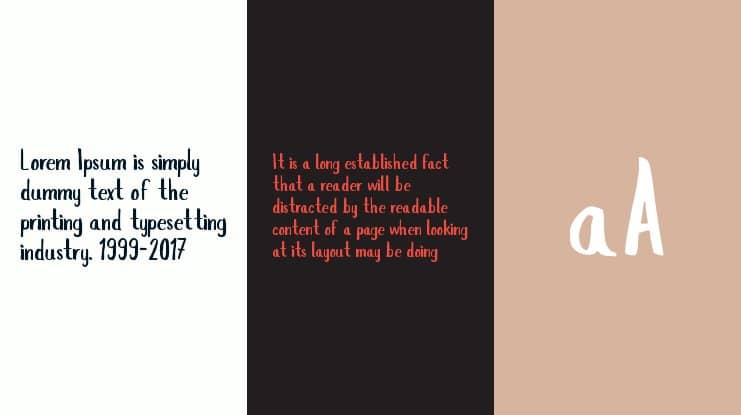
Slopes Brush Font Free
Slopes is a handcrafted brush typeface that works well with vintage and handmade projects. Upper and lower case letters, numbers, and glyphs total 400 characters. Russian, Cyrillic, Central European, and Turkish are examples of multilingual support. This is a really elegant typeface that will allow you to create world-class designs quickly. Boris Garic created and published the Slopes Brush. On February 4, 2018, the Font was made public. The texture of the Font can provide a sophisticated touch to any project.
The black and white font colour scheme gives this Font a strong appearance. The typeface belongs to the Script and Brush font families. This typeface is a godsend for writers looking for a new, elegant font to use in their books. As a brush font, it has a fantastic texture that might be used in a variety of unique and creative projects. The greatest place to use this beautiful Script brush font is in the headings and subheadings. It’s a simple typeface to use, and it can be turned into a web font at any moment. The typeface comes in two different formats: TTF and OTF.
The Font is suitable for logos, printed quotes, invitations, cards, product packaging, headlines, and virtually any other design project. Slopes Brush Font Free is also suitable for use in branding initiatives, homeware designs, product packaging, and as a sophisticated text overlay on any background image. Almost any colour goes well with the typography. On the cover of any book, the Font will look fantastic. Rather than that, it will look great on any book’s headings and subheadings.
| Name | Slopes Brush Font Free |
| Style | Script |
| Designer | Boris Garic |